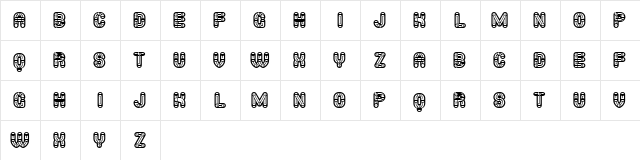
Furious Ride Oriental Book Stra Regular
Design Context for Furious Ride Oriental Book Stra Typeface
Furious Ride Oriental Book Stra is a composed and adaptable typeface that performs quietly and consistently across a wide range of design contexts.